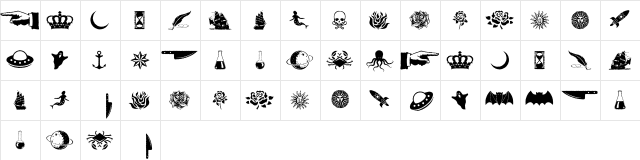
JMH Espinosa Ornaments Regular
Design Context for JMH Espinosa Ornaments Typeface
JMH Espinosa Ornaments is built around its visual character rather than neutral utility — its distinctive forms are designed to make an impression at display sizes.
Font Pairing: Pair with a clean neutral sans-serif for body copy to let JMH Espinosa Ornaments's character lead without overwhelming the composition.
Pro Tip: Use JMH Espinosa Ornaments exclusively at display sizes — it was designed to be seen, not read at length. Let a neutral companion handle body copy.